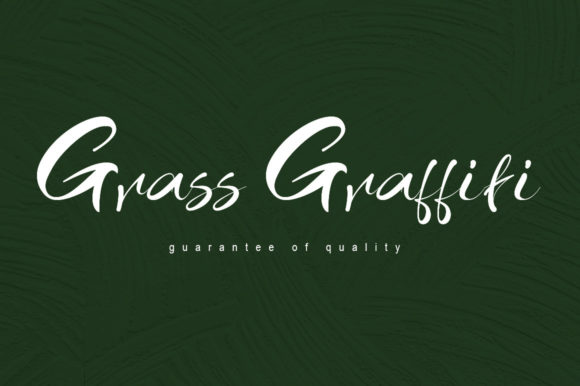
Introducing Grass Graffiti, the stylish and eye-catching handwritten font family that exudes creativity and modern charm. Bold, expressive, and versatile, this font will elevate your designs to new heights and make a lasting impression on viewers.
For those seeking a font that speaks volumes, Grass Graffiti is the answer. Its flowing, energetic strokes and organic feel bring dynamism and energy to any project, whether it's a packaging design, invitation, brochure, or event poster. It commands attention with its natural beauty and transforms ordinary text into captivating works of art.
Unleash your creativity with Grass Graffiti and explore the endless possibilities it offers. Ideal for shirt screen printing, book covers, and any project that demands a touch of flair and distinction, this font family will make your designs shine. Experience the power of typography and elevate your visual communication to remarkable heights.
Embrace the art of lettering with Grass Graffiti. Its playful and charming style will add a touch of delightful personality to your designs and capture the essence of handmade artistry. Create designs that resonate with audiences and leave a lasting impact.
Discover the endless possibilities of Grass Graffiti and transform your creative visions into extraordinary realities. Its bold and captivating strokes will ignite your imagination and empower you to craft designs that speak louder than words.